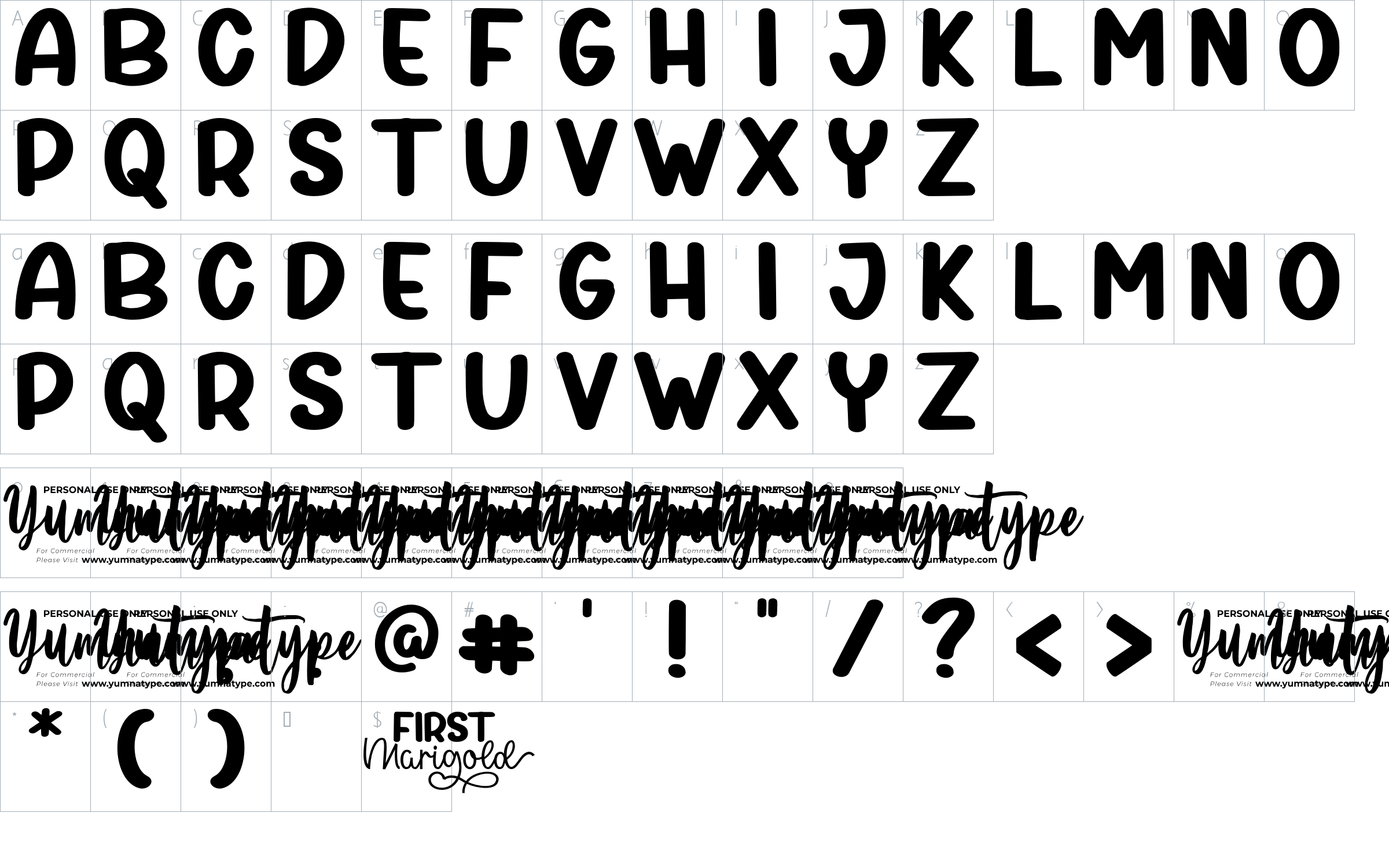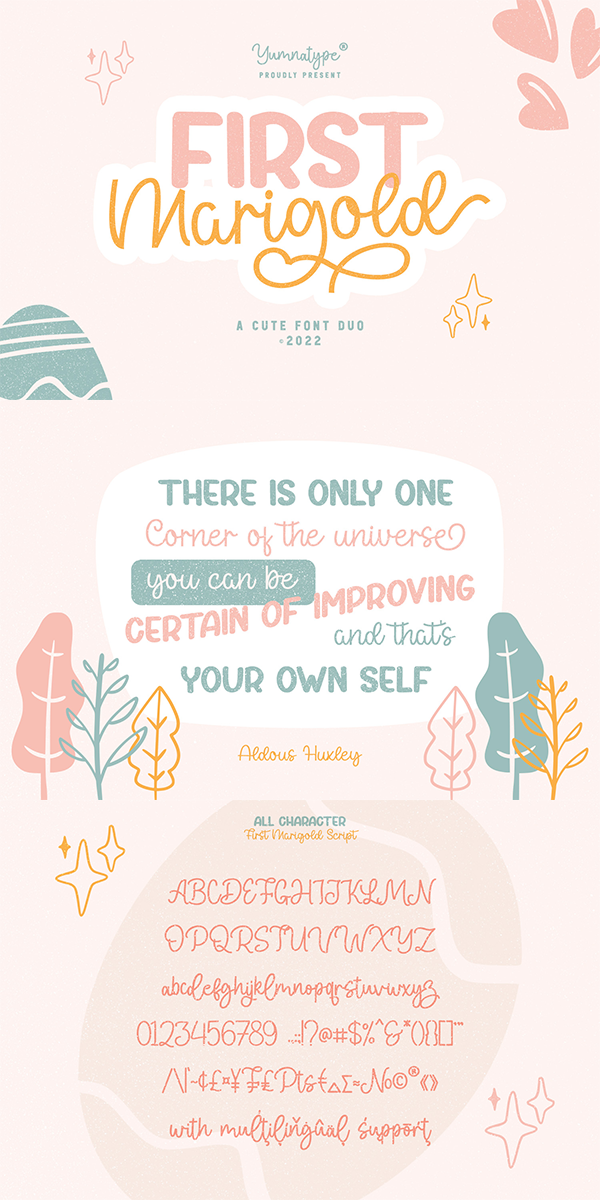
First Marigold Font
About First Marigold
The result of creativity and expertise. Yumnatype presents First Marigold-a new font in special setting. It encapsulates trendy and cute impression through the combination of uppercase display and script fonts. Discover your very best design style by mix and match this font duo.
This font is perfectly used for your presentation, designs, branding, quotes, invitation, website illustrations, etc. See the font preview to get more inspiration about how to use it.